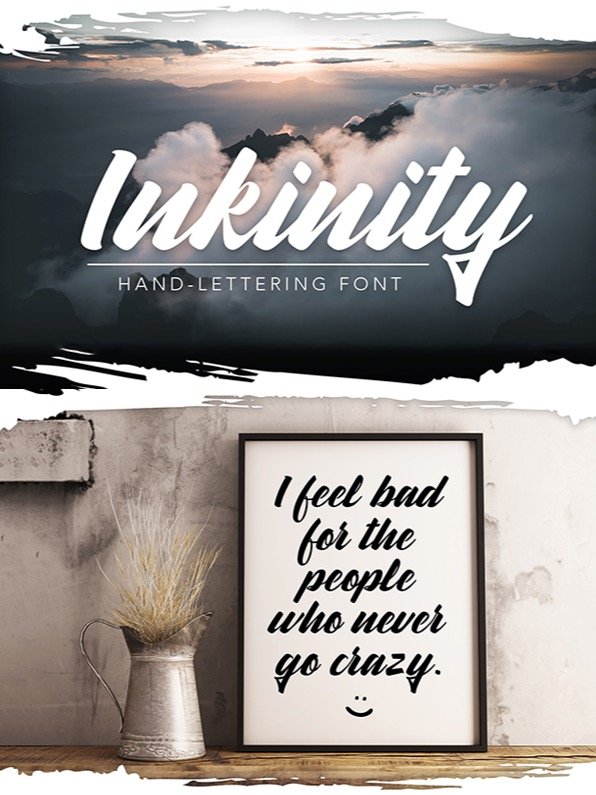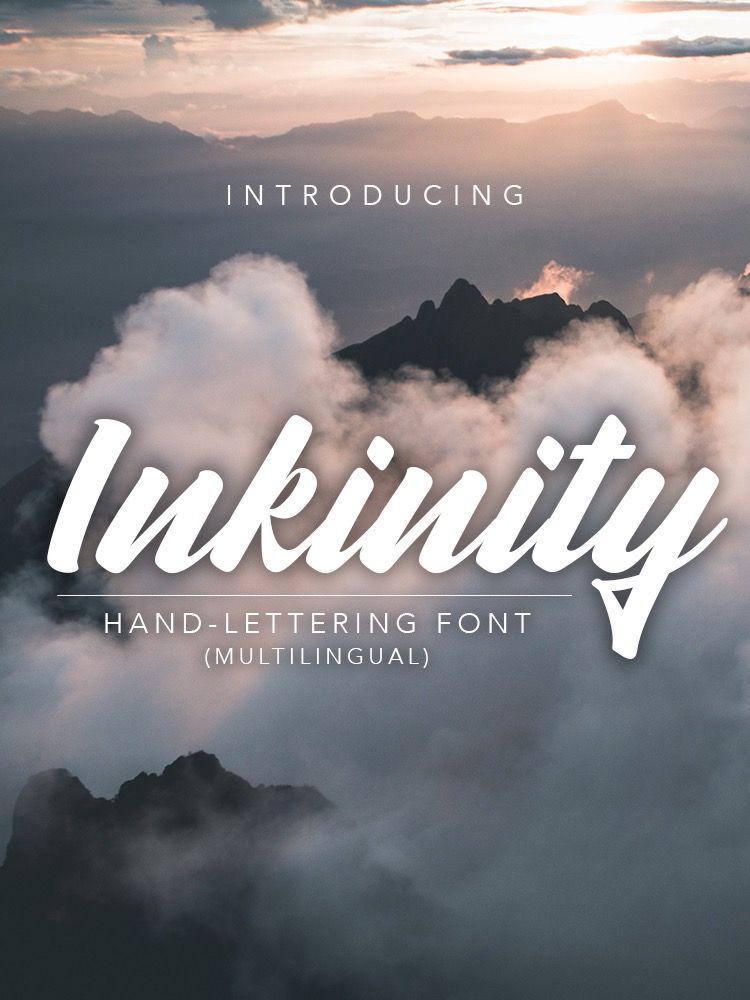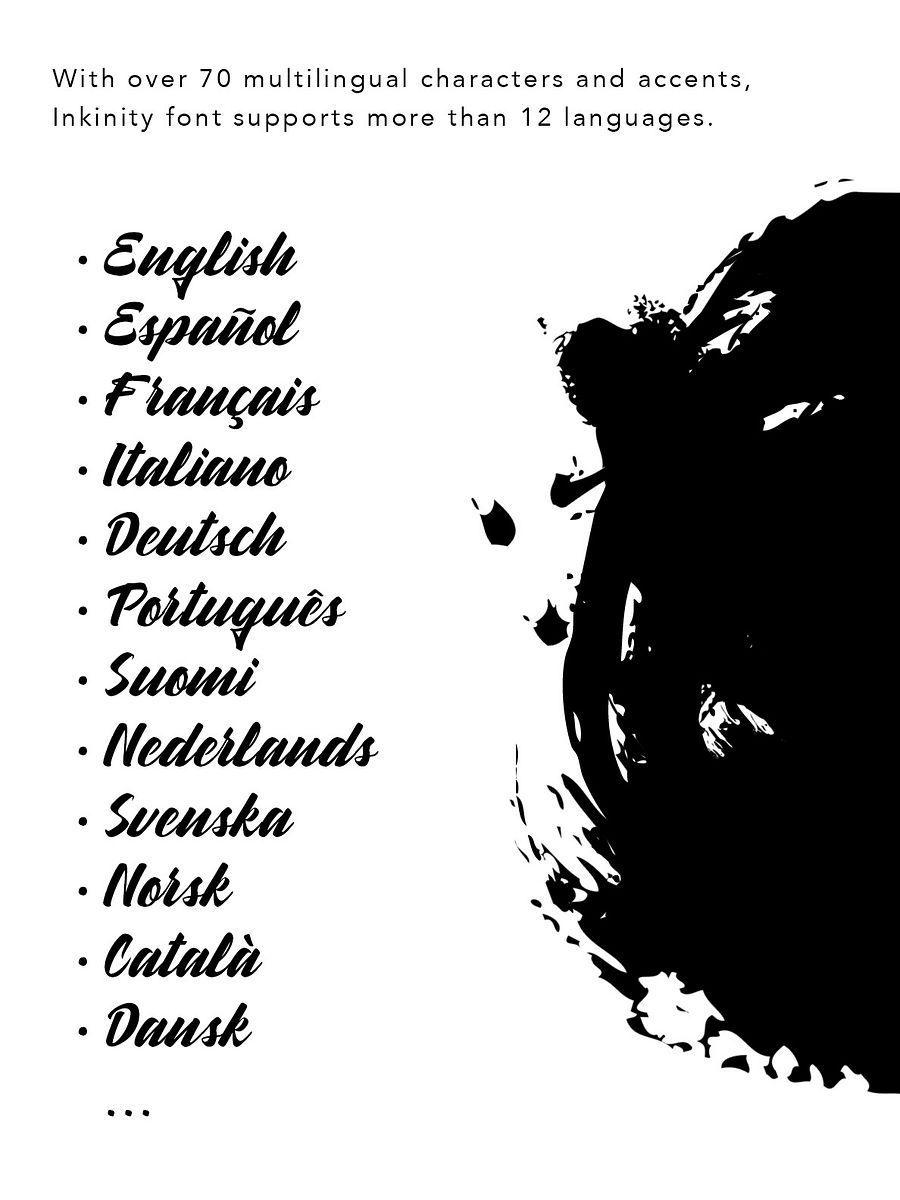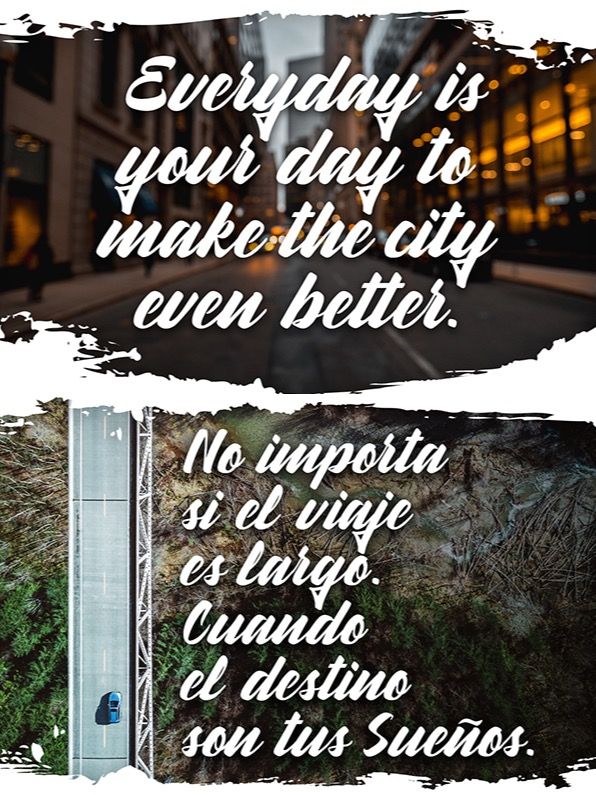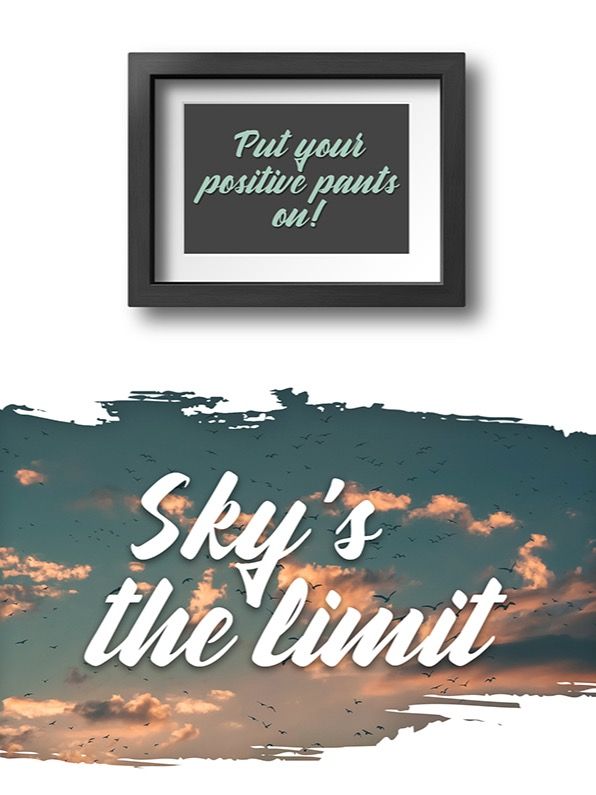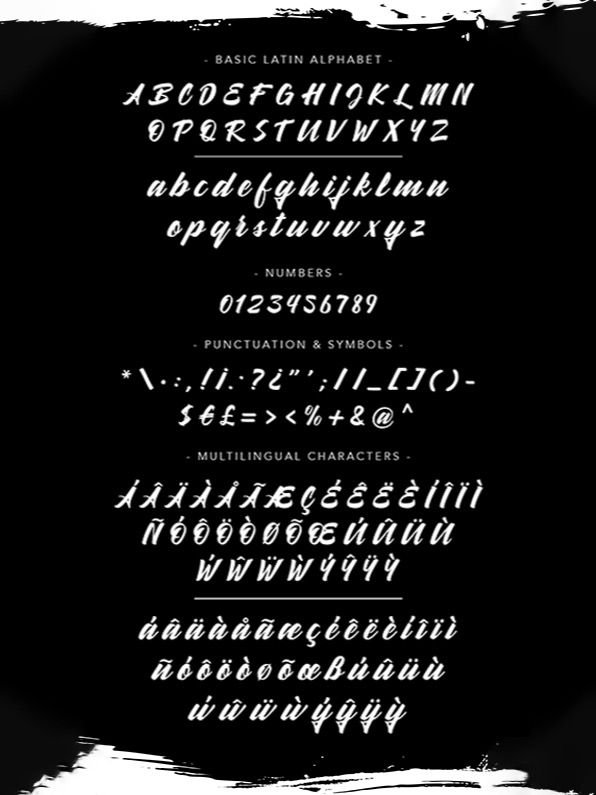
Inkinity Font
Inkinity is a versatile font crafted seamlessly from traditional ink and paper to a digital vector format. This transition preserves the organic essence of hand-drawn elements while adapting to the precision and flexibility of modern design tools.​​​​​​​
It encompasses both uppercase and lowercase letters, numerals, punctuation, symbols, and a range of multilingual characters. With support for over 12 languages, it ensures versatility and inclusivity across various linguistic requirements.​​​​​​​